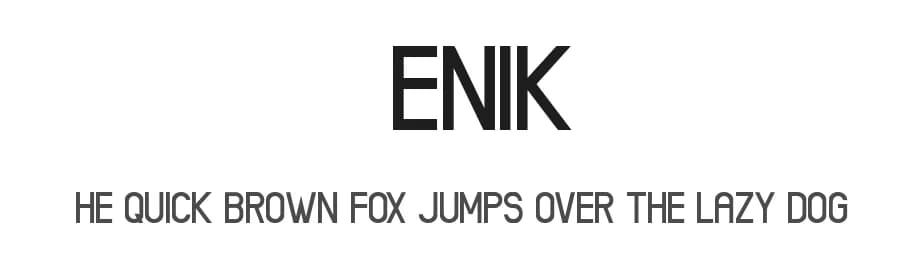
About Xenik Font
Xenik Specifications
| Font Family | Xenik |
| Full Name | Xenik |
| Designer | Carlos Matteoli a.k.a. Qbotype |
Xenik Font is a versatile sans-serif font that works for both headings and body text. Pair it with a contrasting serif or slab serif font to add visual interest and a clear distinction between titles and body copy.
Xenik Font